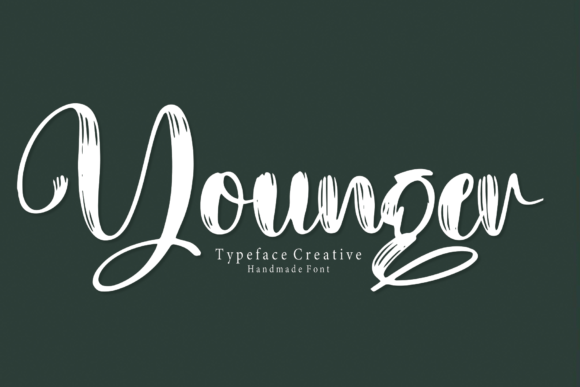
Introducing Younger Font, the handwritten masterpiece that adds a touch of charm and elegance to your creative projects. With its intricate crosshatched details, this script font captivates the eye, leaving a lasting impression.
Delve into the world of Younger Font, a font family designed to elevate your designs and make your words dance off the page. Its unique and stylish appearance will transform ordinary text into captivating expressions, perfect for a wide spectrum of applications.
Take your resume to the next level with Younger Font, a font perfect for CV design. Its elegant strokes and legible letterforms make it easy for recruiters to focus on your skills and accomplishments. Stand out from the crowd and leave a lasting impression with a resume that exudes professionalism and creativity.
Unleash your creativity and explore the boundless possibilities of Younger Font. Craft mesmerizing wall displays that command attention, design wedding invitations that evoke timeless romance, and create social media posts that resonate with your audience. Younger Font is your versatile companion, adapting seamlessly to your every need.
Add a touch of sophistication to your product packaging and designs. Let Younger Font enhance your labels, adding a touch of elegance that reflects the quality of your products. Its timeless appeal complements any product, making it a perfect choice for businesses looking to leave a lasting impression.
Capture life's special moments with Younger Font. Use it to create beautiful watermarks on your photographs, adding a personal touch that transforms them into cherished memories. Design invitations and stationery that exude charm and grace, making your special occasions even more memorable.
Whatever your creative project may be, Younger Font is the perfect choice. Its versatility and timeless appeal make it a font that you'll reach for again and again. Let Younger Font elevate your designs, captivate your audience, and leave a lasting impression.